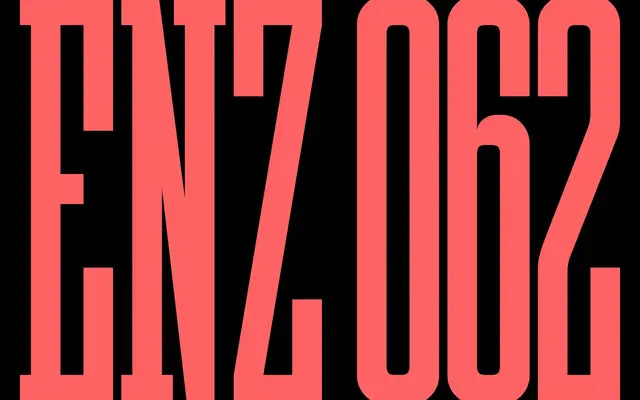
Blakey Slab
Typespec · Matt Willey · 2020
A condensed, all-caps slab serif in two weights, designed by Matt Willey and originally donated to the ACLU, later updated and released through the BuyFontsSaveLives charity initiative.
Designed by Matt Willey and originally created as a donation to the ACLU, this condensed all-caps slab gained visibility through its use in the New York Times Magazine's L.A. Noir 'Great Performances' issues, both in print and an acclaimed experimental video series. A version 2.0 was released in late 2020 following Willey's appointment as a partner at Pentagram, with proceeds from sales directed to Cancer Research and MacMillan Cancer Support. Its two weights, Regular and Bold, suit high-contrast editorial display settings where a taut, institutional tone is needed.
An all-caps condensed slab serif, placing it firmly in the display slab category with its compressed proportions and heavy bracketed serifs suited to editorial headlines.